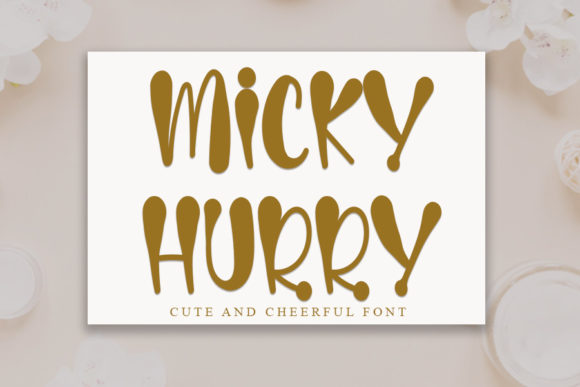
**Unleash the Enchantment of Micky Hurry: A Font Symphony for Your Creative Odyssey**
In a world where beauty reigns supreme, Micky Hurry emerges as the maestro of aesthetics, captivating hearts with its effortless grace and timeless elegance. This enchanting display font from the visionary minds at Intana Type invites you on an artistic journey where imagination takes flight.
Micky Hurry's meticulous design exudes a symphony of simplicity and harmony, effortlessly complementing any design masterpiece. Its versatile nature transforms it into a chameleon of creativity, adapting seamlessly to your every whim. Whether you seek to adorn your logos with a touch of allure or weave captivating headlines, Micky Hurry stands ready to elevate your creations.
With each stroke and curve, Micky Hurry whispers tales of elegance and sophistication. Its clean lines and uncluttered form create a visual canvas that invites your imagination to roam free. Let your designs blossom with a touch of Micky Hurry's brilliance, and witness the transformation from ordinary to extraordinary.
Step into the realm of limitless possibilities with Micky Hurry. Explore the endless variations that await your discovery, unlocking a treasure trove of creative expression. Each twist and turn of this font becomes a brushstroke on the canvas of your imagination, painting masterpieces that will leave an unforgettable mark.
Indulge in the allure of Micky Hurry today, and embark on a creative adventure where beauty and brilliance intertwine. Embrace the power of this font to elevate your designs to new heights of enchantment and captivate hearts with every stroke.